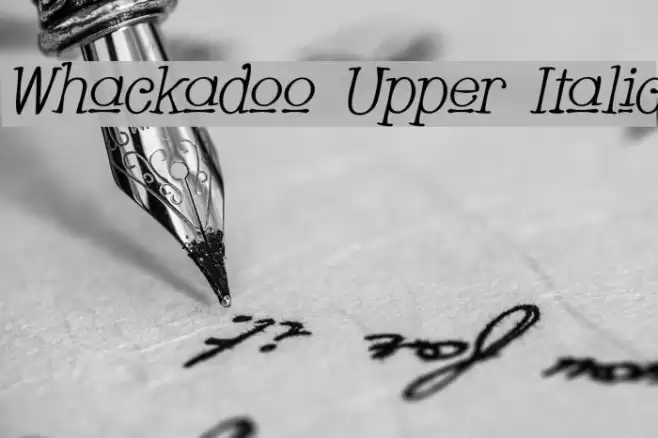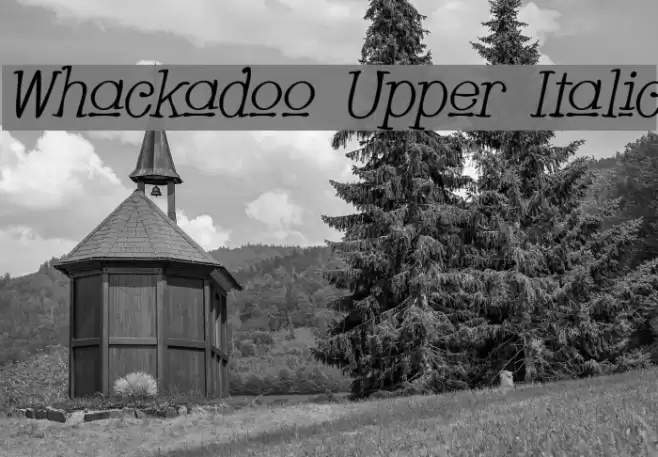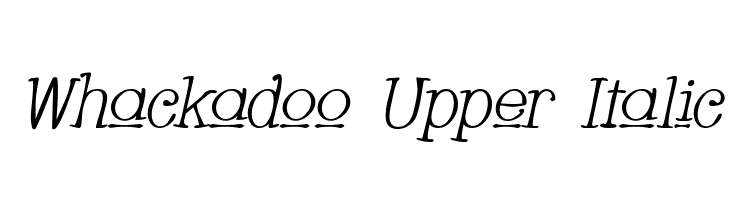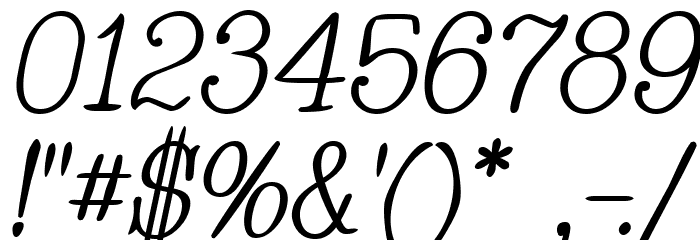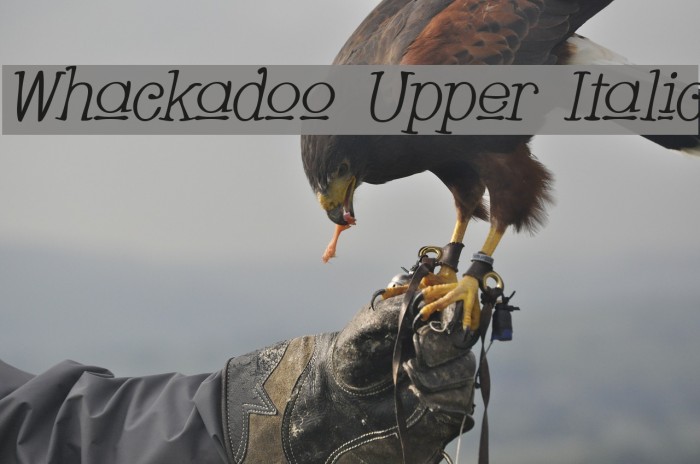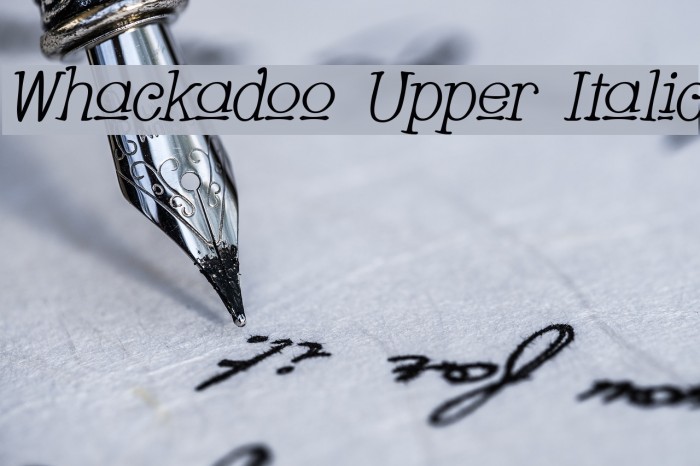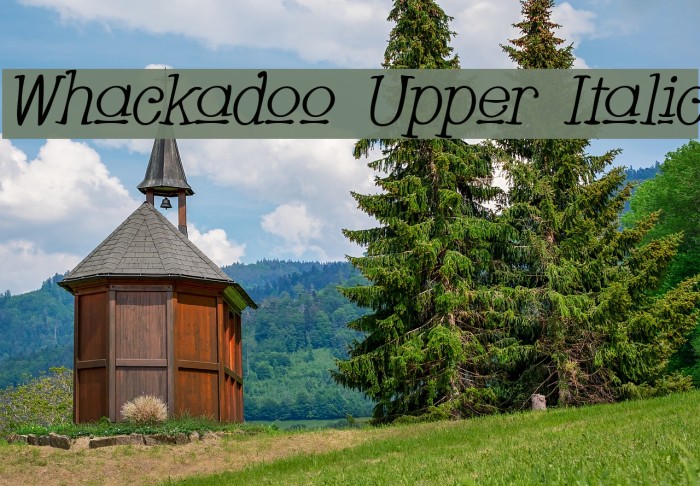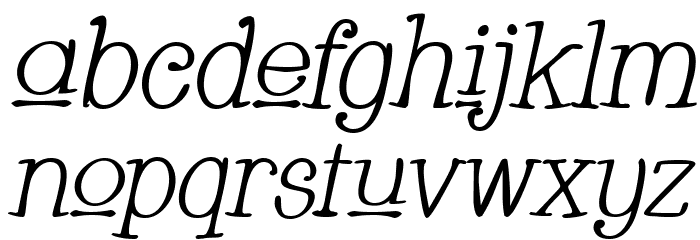
Whackadoo Upper Italic Font
Whackadoo Upper Italic Description
This font features a playful and dynamic italic style with a handwritten feel. The letters are slightly slanted, adding a sense of movement and fluidity. The strokes are smooth and consistent, with moderate contrast between thick and thin lines. The uppercase letters are bold and prominent, while the lowercase letters maintain a friendly and approachable appearance. The numerals and special characters are well-integrated, maintaining the overall whimsical aesthetic. This font is versatile, suitable for projects that require a touch of creativity and informality.
A playful, italic handwritten font with smooth strokes and moderate contrast from Crazy fonts.
- Proposed Projects: Ideal for greeting cards, playful branding, children's books, and creative posters.
- Use Case: Logos, Headlines, Creative projects